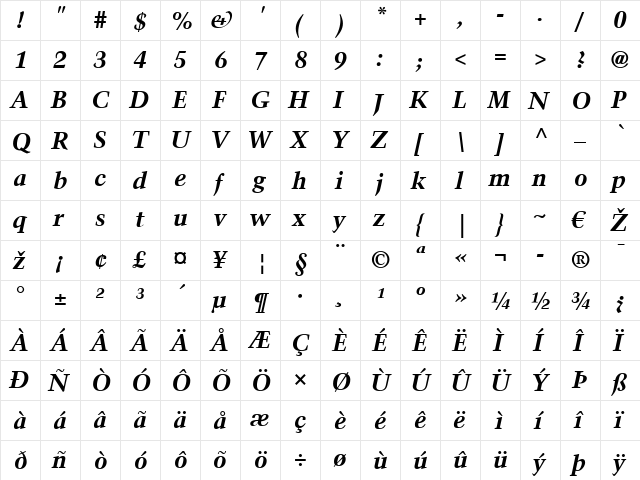
TrumpMediaeval LT Bold Italic Font Preview
Design Context for TrumpMediaeval LT Typeface
TrumpMediaeval LT offers clean, dependable letterforms without strong stylistic allegiance, making it a practical choice for designers who need flexibility. Its italic angle brings a sense of urgency and motion to the letterforms. Its bold stroke weight gives it real presence on the page.
Pro Tip: Try TrumpMediaeval LT for annotation and caption copy alongside an upright companion — the contrast in angle creates a dynamic but ordered typographic system.